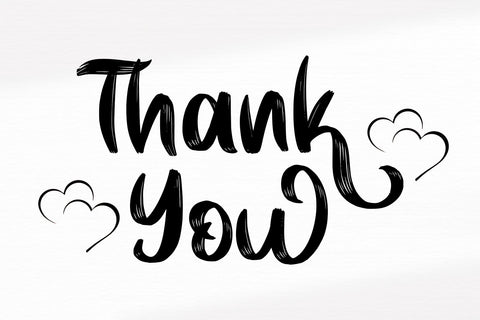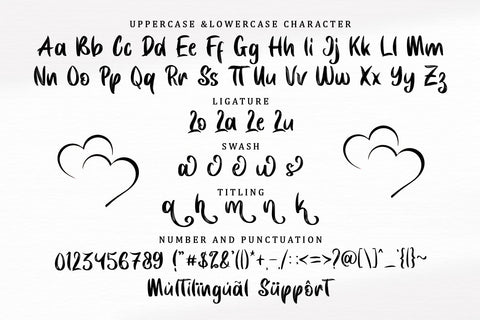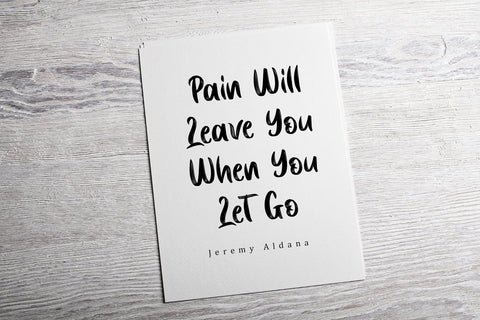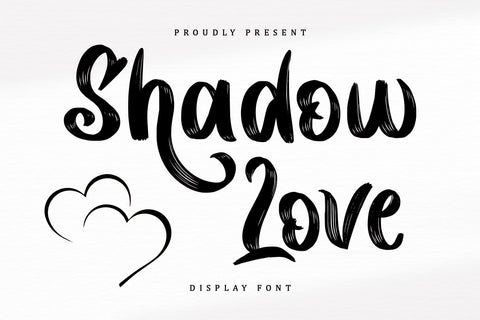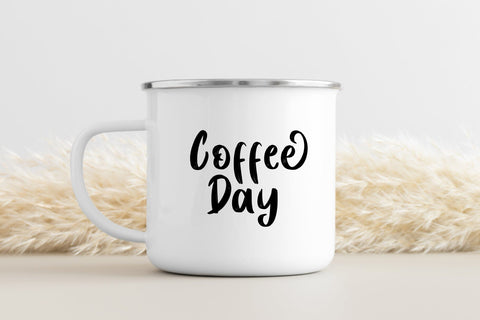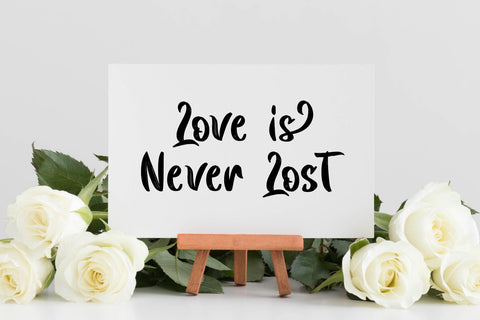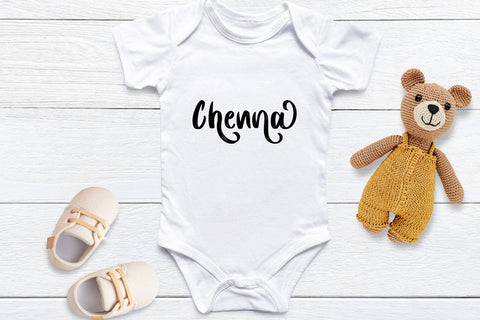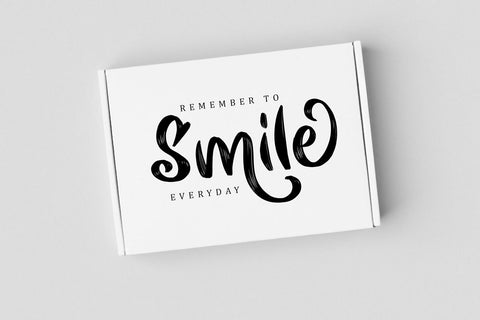
Shadow Love
Shadow Love is a handwritten brush script font that looks and feels like it was written on a marker board. Perfect for greeting cards, invitations, and motivational quotes, this font should help you express all of your best messages!